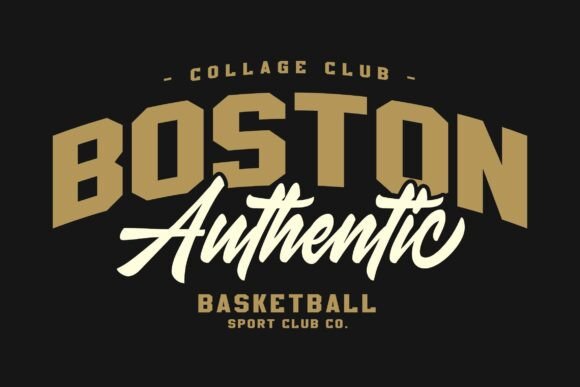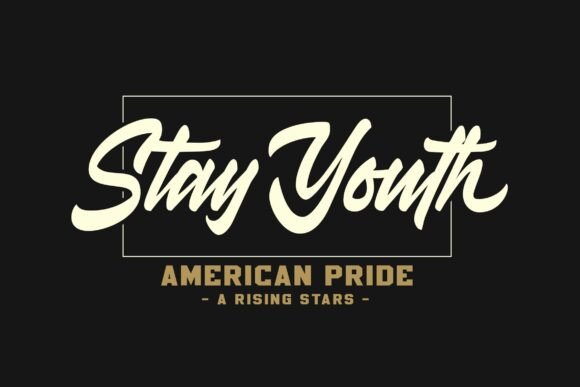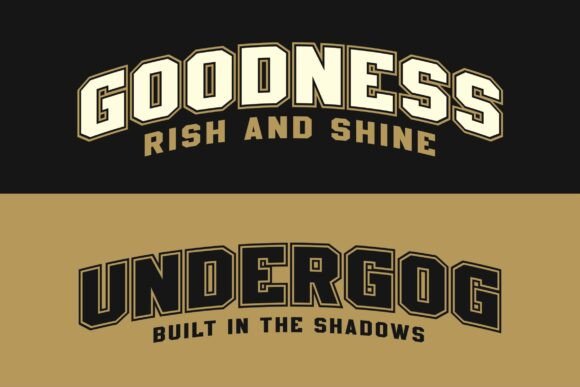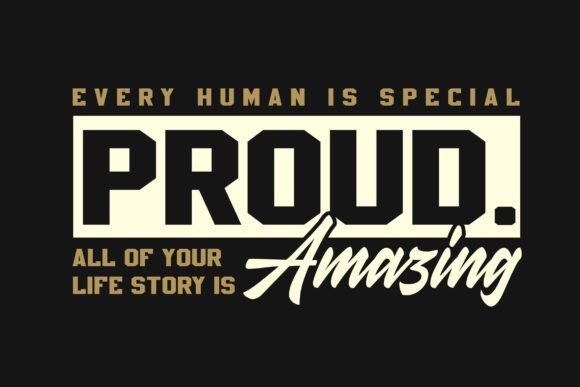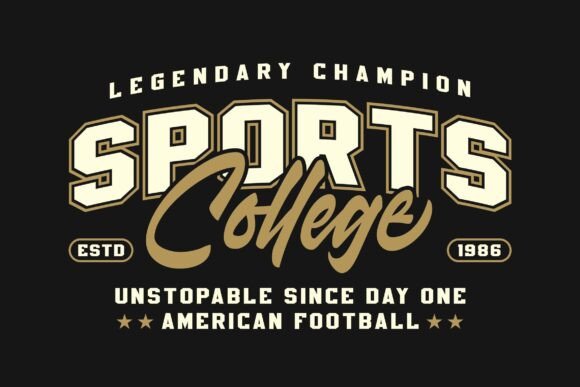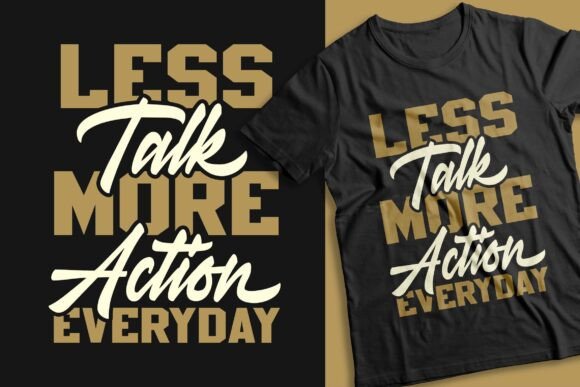
The Perfect Touch for Your Next Project: Introducing Golden Varsity Font
Do you remember the thrill of walking into the stadium on game day, surrounded by the energetic crowd and the electric atmosphere? The smell of popcorn and hot dogs, the sound of the band playing, and the excitement of cheering on your favorite team. For designers, that feeling can be recreated through the perfect font choice – and that’s where the Golden Varsity Font comes in.
This sporty font combination is designed to capture the essence of college spirit and add a touch of nostalgia to your projects. With its full set of college sporty uppercase and lowercase letters, numerals, and punctuation, the Golden Varsity Font is perfect for any professional project branding, from logotypes to watermarks, posters, and product packaging.
- Unique Characteristics: The Golden Varsity Font features a distinctive, elegant design with a golden hue, making it ideal for use in titles, headings, and other high-impact text elements.
- Font Style: The font is available in both regular and bold styles, allowing designers to add emphasis and visual interest to their text.
- Scalability: The Golden Varsity Font is highly scalable, making it suitable for use in a wide range of design applications, from small text elements to large, eye-catching titles.
Designer Review: Golden Varsity Font
Overall, I found the Golden Varsity Font to be an interesting and unique addition to the font family. It’s a clear attempt to create a modern, energetic font that stands out from the crowd.
- ✨ The font’s most striking feature is its confident, bold appearance, making it perfect for titles and headlines.
- ✨ The font’s modern feel is well-suited for contemporary branding and advertising materials.
- ✨ The font’s legibility is generally good, with clear distinctions between letters and easy-to-read lines.
- ⚠️ The font’s extreme boldness can make it difficult to read in smaller sizes or when used for extended blocks of text.
- ⚠️ The font’s modern feel may not be suitable for all brands or design projects, particularly those with a more traditional or conservative aesthetic.
- ⚠️ Some users may find the font’s lack of subtlety and nuance to be overwhelming or annoying.
In conclusion, the Golden Varsity Font is a solid choice for designers looking to add some modern flair to their projects. However, it’s essential to use it judiciously and consider the context in which it will be used to ensure the best results.
The Golden Varsity Font is ideal for creating bold, eye-catching headlines and titles. It’s commonly used in:
- Event invitations and promotional materials.
- Marketing and advertising campaigns.
- College and university branding materials.
Playfair Display is a luxurious, high-end serif font that exudes elegance and sophistication. It is ideal for use in high-end branding, luxury goods, and upscale publications. Unlike Golden Varsity Font, which is more straightforward and classic, Playfair Display is ornate and decorative, making it perfect for adding a touch of luxury to your design.
Bodoni is a classic, elegant serif font that is reminiscent of the 18th century. It is ideal for use in high-end fashion, luxury goods, and sophisticated publications. While Golden Varsity Font is more modern and versatile, Bodoni is more traditional and refined, making it perfect for creating a sense of classic sophistication.
Yes, the Golden Varsity Font is available in multiple font weights, including Light, Regular, Medium, Bold, and Black. Each weight is carefully designed to provide a consistent visual identity across different applications and use cases.